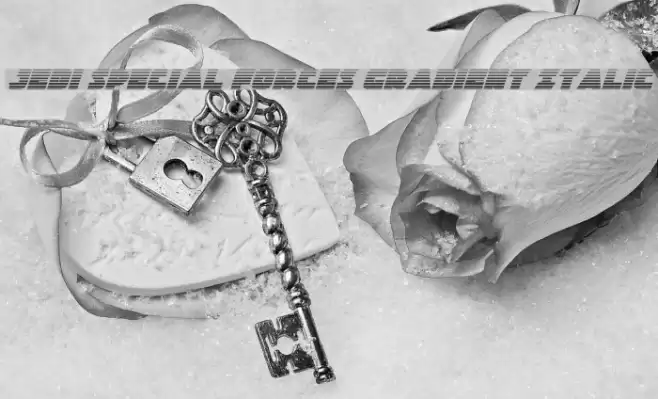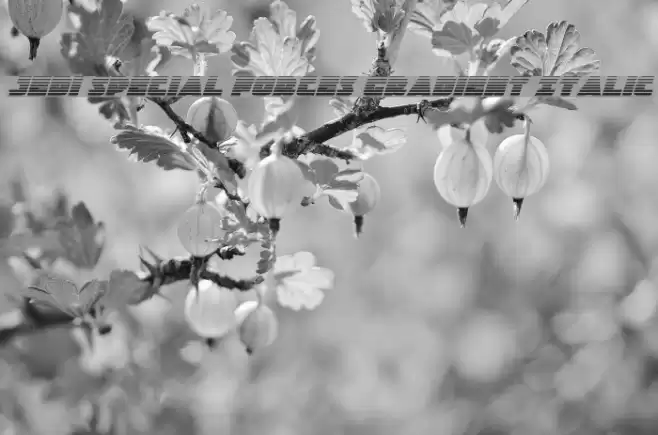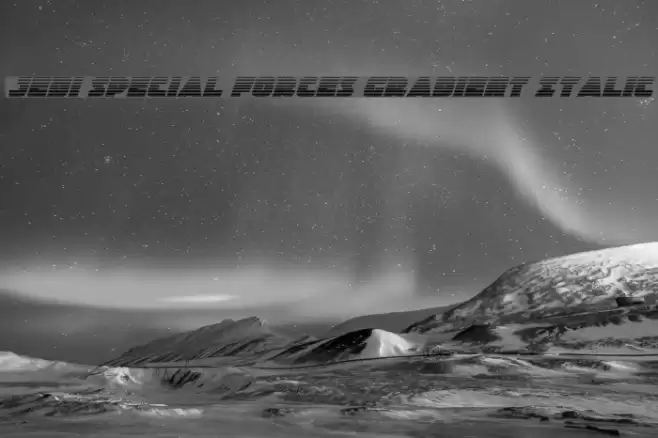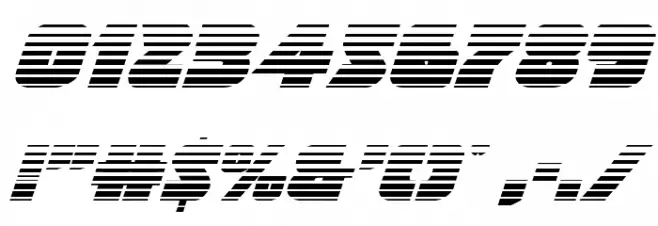
Jedi Special Forces Gradient Italic Font
Jedi Special Forces Gradient Italic Description
This font features a futuristic and dynamic design, characterized by its bold, italicized letters with a gradient effect created by horizontal lines cutting through each character. The style is reminiscent of high-speed motion, giving it an energetic and modern appearance. The uppercase and lowercase letters maintain a consistent slant, enhancing the sense of movement. The numerals and special characters follow the same design principles, ensuring uniformity across the font. This font is ideal for projects that require a bold statement and a sense of speed or technology.
A bold, italicized font with a futuristic gradient effect and dynamic style from Uncategorized fonts.
- Proposed Projects: Ideal for sci-fi themed projects, video game titles, tech branding, and dynamic posters.
- Contrast: High
- Overall Style: Futuristic, Dynamic